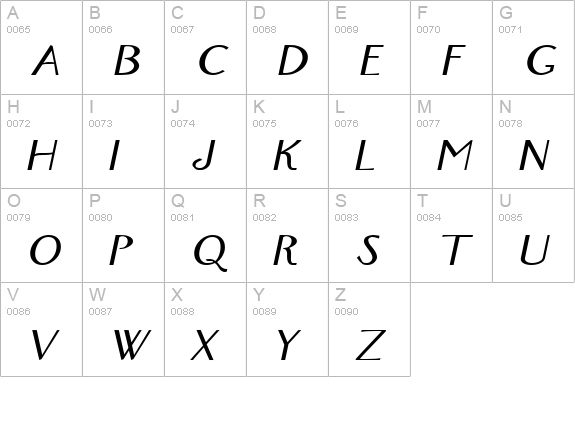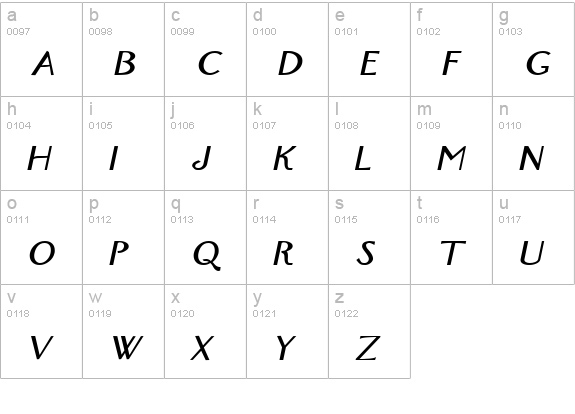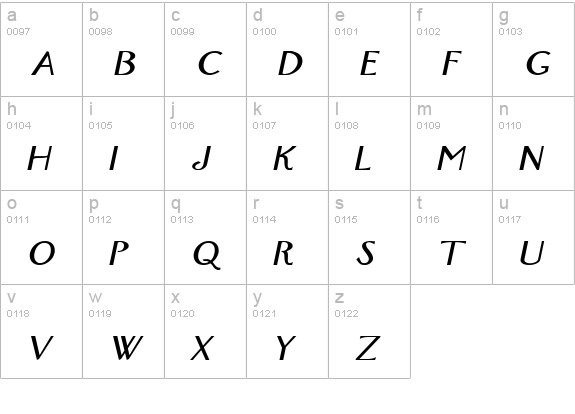
New York-Extended Italic Font Details
New York-Extended Italic is a distinctive, extended-width, italic variant in the New typeface family \xE2\x80\x94 well suited to design and typography projects.
Introducing New York-Extended Italic font, a sleek and modern typeface designed to make a bold statement. With its elongated and stylish italic design, this font is perfect for adding a touch of sophistication to your projects. Whether you're working on branding, editorial design, or anything in between, New York-Extended Italic font will elevate your work to the next level. And the best part? This stunning font is available for free download at FontsMarket.com. Don't miss out on the opportunity to enhance your designs with the elegance and flair of New York-Extended Italic font. Download it today and let your creativity shine!